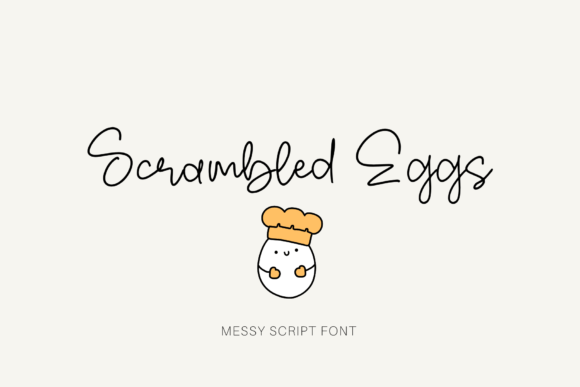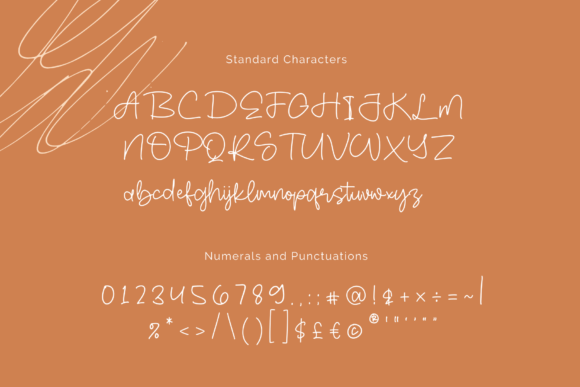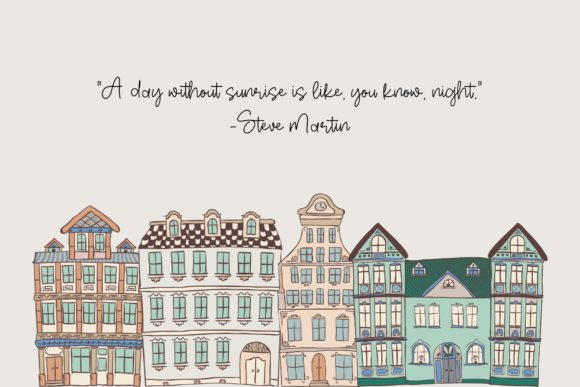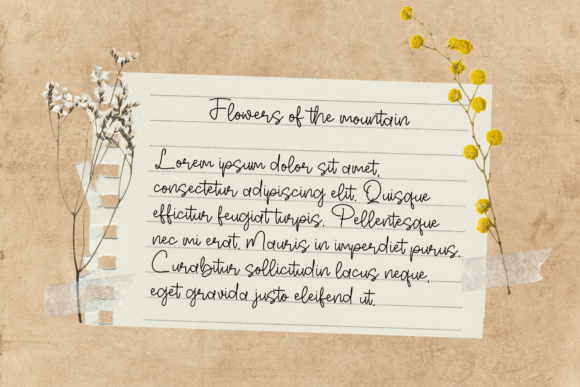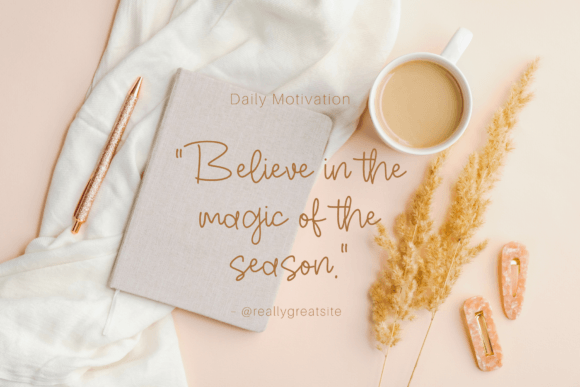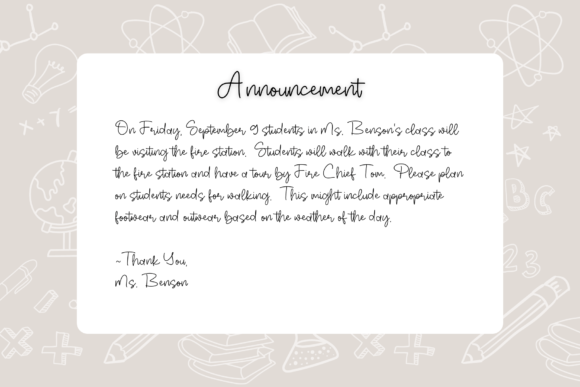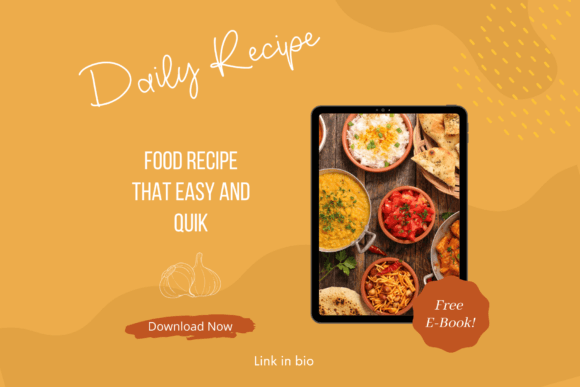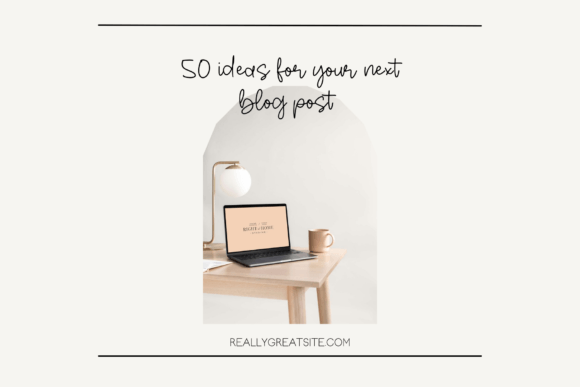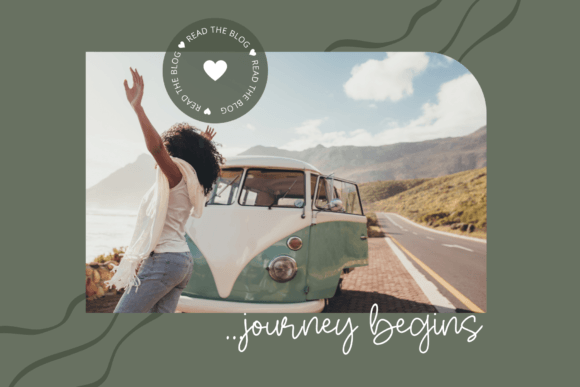
Scrambled Eggs Font
About Scrambled Eggs Font
“Scrambled Eggs” is a fun and playful handwritten font that exudes a whimsical and slightly quirky charm. It has the ability to infuse a sense of delight into your designs, making it an excellent choice for a wide range of creative projects. When you confidently add “Scrambled Eggs” to your work, you’re bound to love the lively and vibrant results it brings.
The font’s fun and playful design adds a touch of character and uniqueness to your creative endeavors. Its whimsical nature makes it well-suited for projects that seek to stand out and bring a sense of joy and creativity to the audience.
In the world of design, fonts serve as a means to convey emotions, set the tone, and capture attention. “Scrambled Eggs” excels in these aspects by offering a handwritten style that is not only fun but also a tad quirky. Its aesthetics add a personalized and vibrant touch to your projects, making them more engaging and memorable.
In summary, “Scrambled Eggs” is more than just a font; it’s a fun and whimsical design tool for infusing character and liveliness into your designs. Its playful and slightly quirky handwritten style is ideal for designers seeking to create projects that radiate joy and creativity. Whether you’re an experienced designer or just starting your creative journey, “Scrambled Eggs” is the font that can add a playful and vibrant touch to your work.